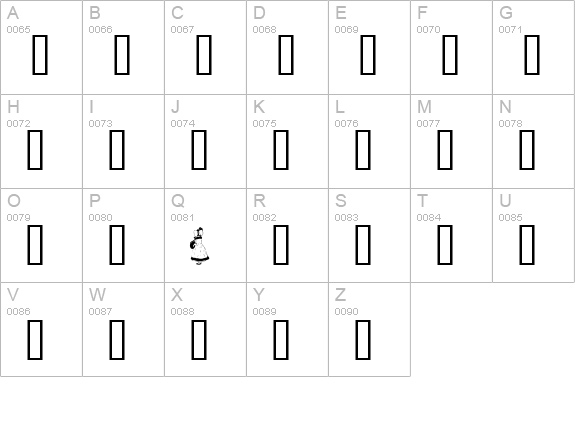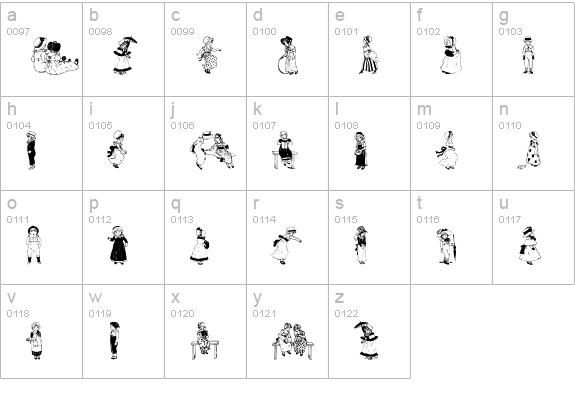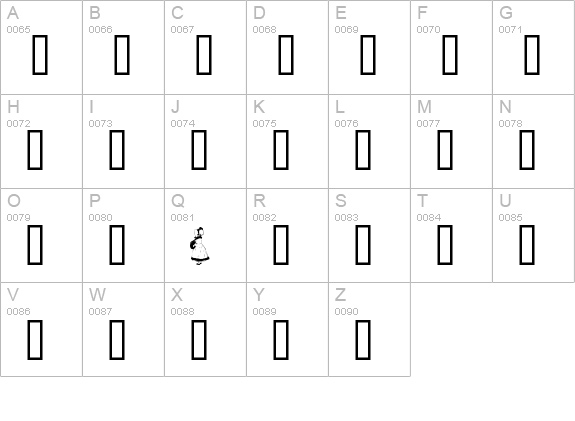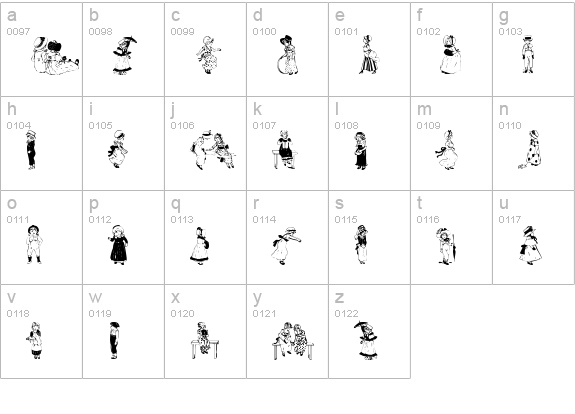
Children Font Details
Introducing Children font, a playful and whimsical typeface perfect for all your creative projects. Designed with a childlike innocence and charm, this font is sure to bring a smile to anyone's face. Whether you're working on a children's book, party invitation, or school project, Children font is the perfect choice to add a touch of fun and imagination. Best of all, Children font is completely free to download at FontsMarket.com. Simply visit the website to access this delightful font and start adding a touch of playfulness to your designs today. Let your creativity run wild with Children font and watch as your projects come to life with its cheerful and youthful spirit.